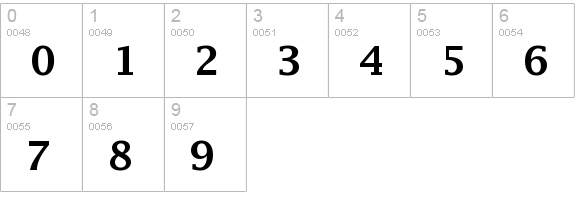
Lucida Fax Demibold is a sub-bold, structured variant in the Lucida typeface family \xE2\x80\x94 well suited to sub-headlines and emphasised passages.
Lucida Fax Demibold is a bold and impactful font that exudes professionalism and sophistication. With its strong and clear letterforms, this typeface commands attention and makes a bold statement in any design project. The Demibold weight provides just the right amount of emphasis without being overpowering, making it versatile for a variety of applications. What's even better is that Lucida Fax Demibold is available for free download at FontsMarket.com. This means you can easily access and use this high-quality font in your projects without any cost. Whether you're creating print materials, digital designs, or branding elements, Lucida Fax Demibold is sure to elevate your work with its sleek and modern aesthetic. Don't miss out on this amazing opportunity to enhance your projects with this fantastic font. Download Lucida Fax Demibold today and take your designs to the next level!